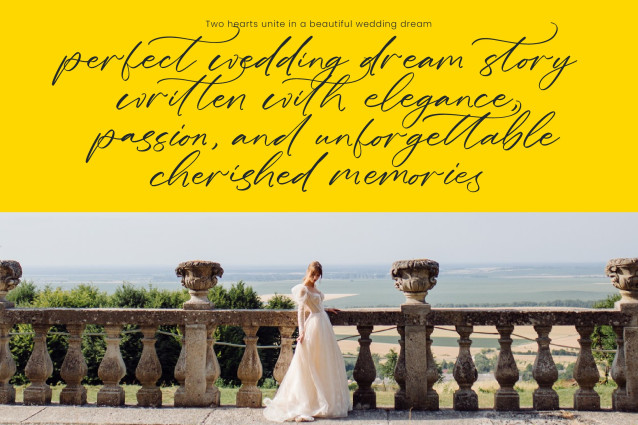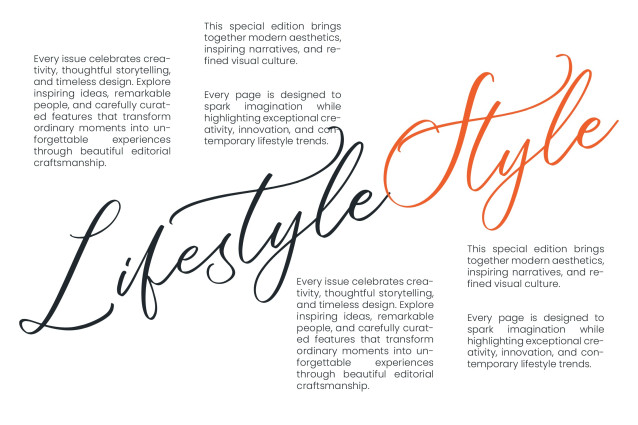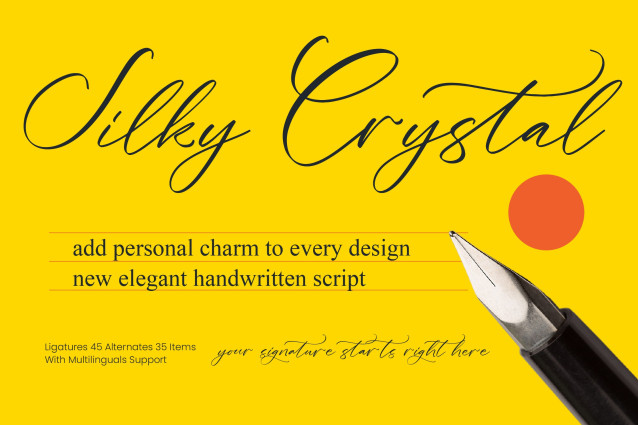
Silky Crystal – Elegant Handwritten Script Font
Elevate your creative vision with a typeface that embodies pure sophistication and organic movement. Silky Crystal – Elegant Handwritten Script is a masterpiece of modern calligraphy, offering fluid strokes and a refined aesthetic that captures the essence of high-end craftsmanship. This font is meticulously designed to provide a natural handwriting feel, ensuring that every word carries a sense of exclusivity and grace that is perfect for discerning clients looking for a high-contrast and expressive design.
Experience unmatched versatility and technical precision with a typeface built for the modern designer. Featuring over 45 ligatures and 35 alternates, Silky Crystal – Elegant Handwritten Script provides endless customization options to create truly unique and organic compositions. With its extensive multilingual support, Silky Crystal – Elegant Handwritten Script adapts seamlessly across global markets, making it incredibly versatile for international projects and diverse branding needs that require a global reach.